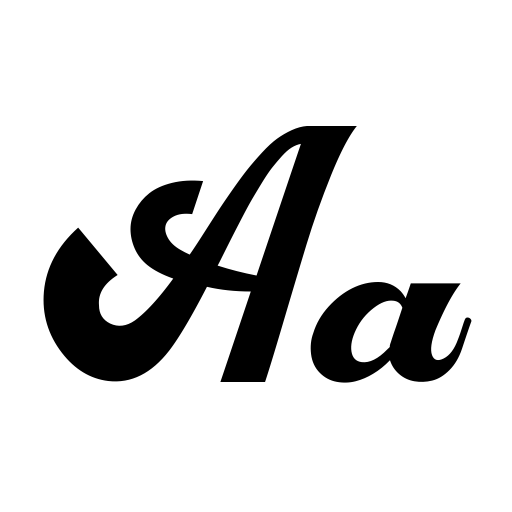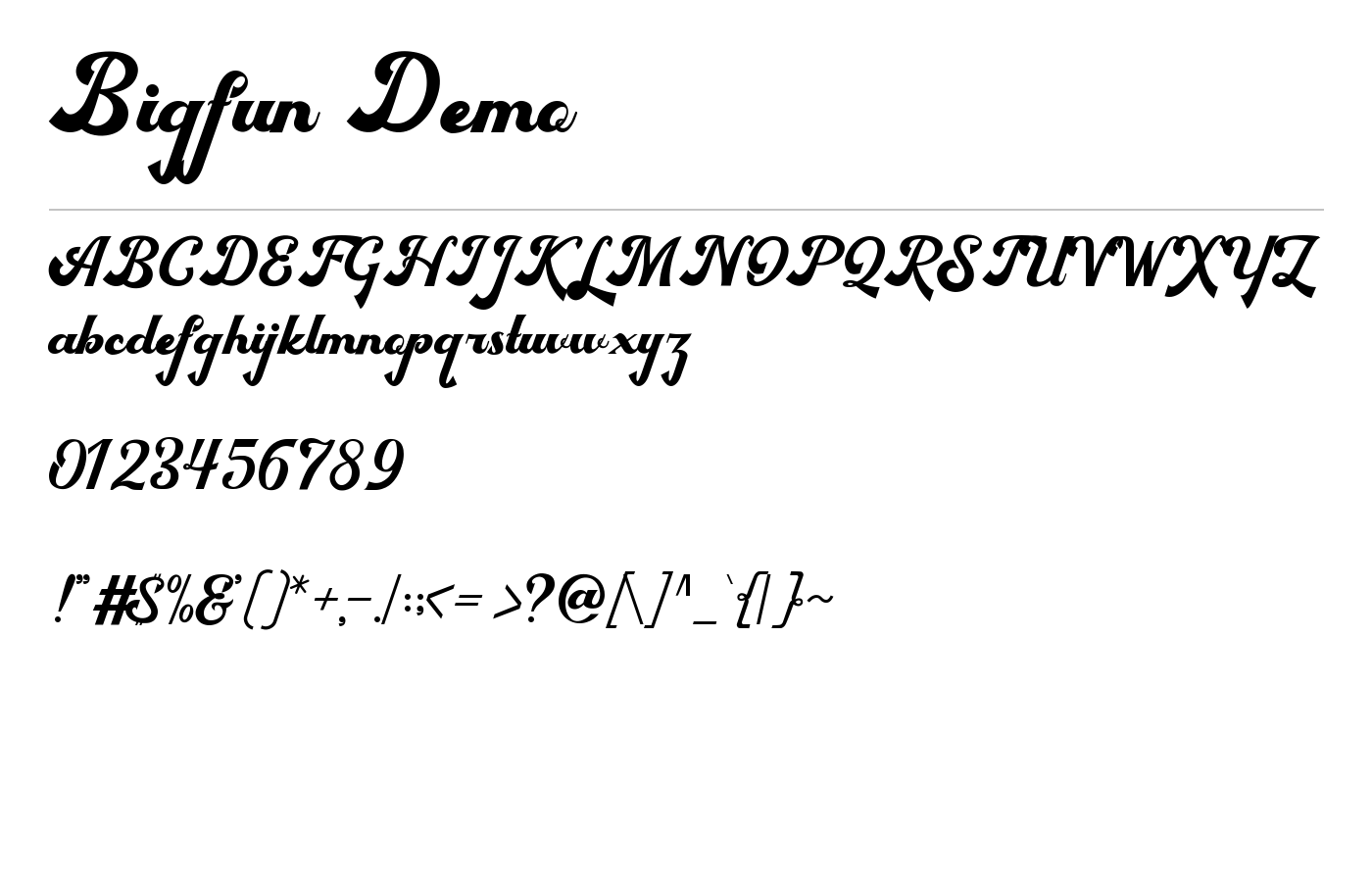
Bigfun is a bold, cursive script font with a lively and elegant personality, featuring thick, flowing strokes and a playful yet sophisticated vibe. Its strong contrasts and unique letterforms make it ideal for eye-catching headlines, logos, and branding that want to convey charm and creativity with a touch of vintage flair. This font works well in fashion, packaging, and editorial designs where a fun but polished look is desired.
Bigfun Font
About Bigfun Font